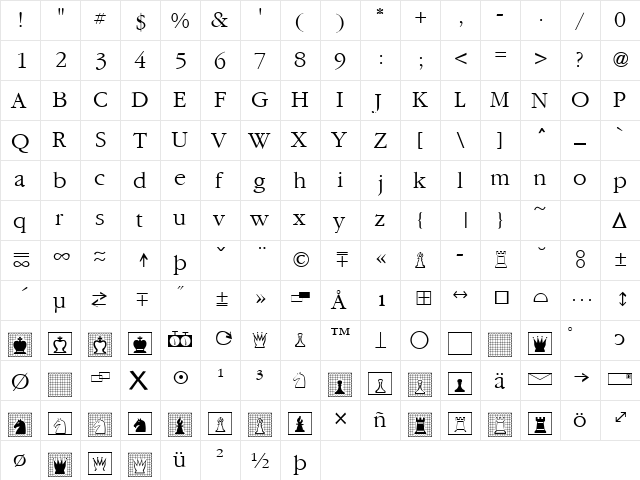
Hilversum Regular Regular
Design Context for Hilversum Regular Typeface
Hilversum Regular is a composed and adaptable typeface that performs quietly and consistently across a wide range of design contexts.